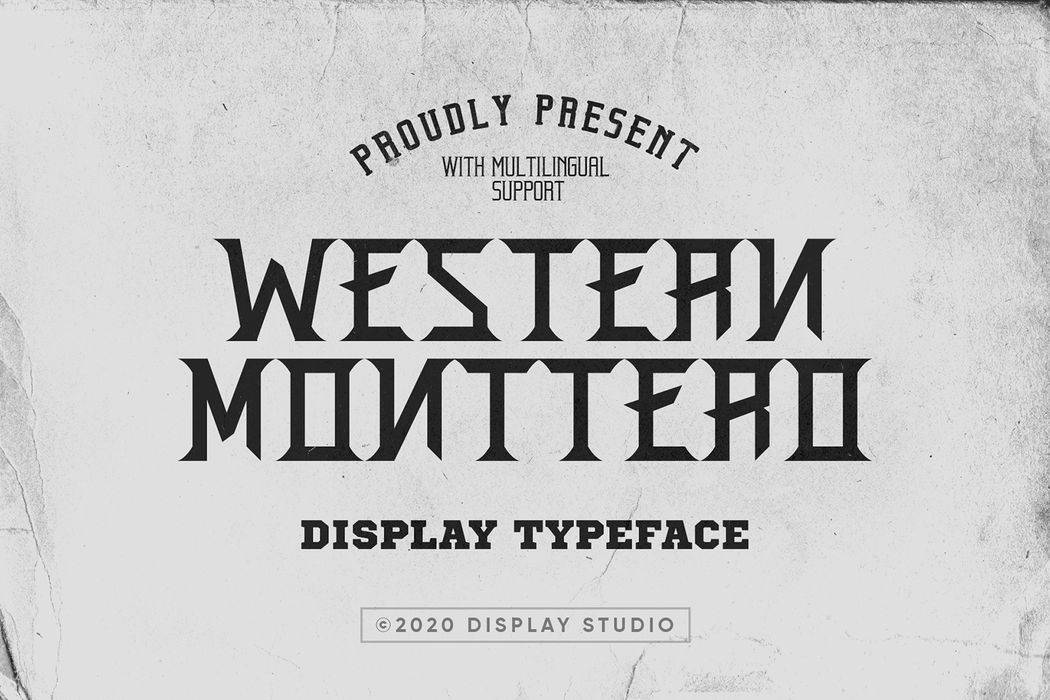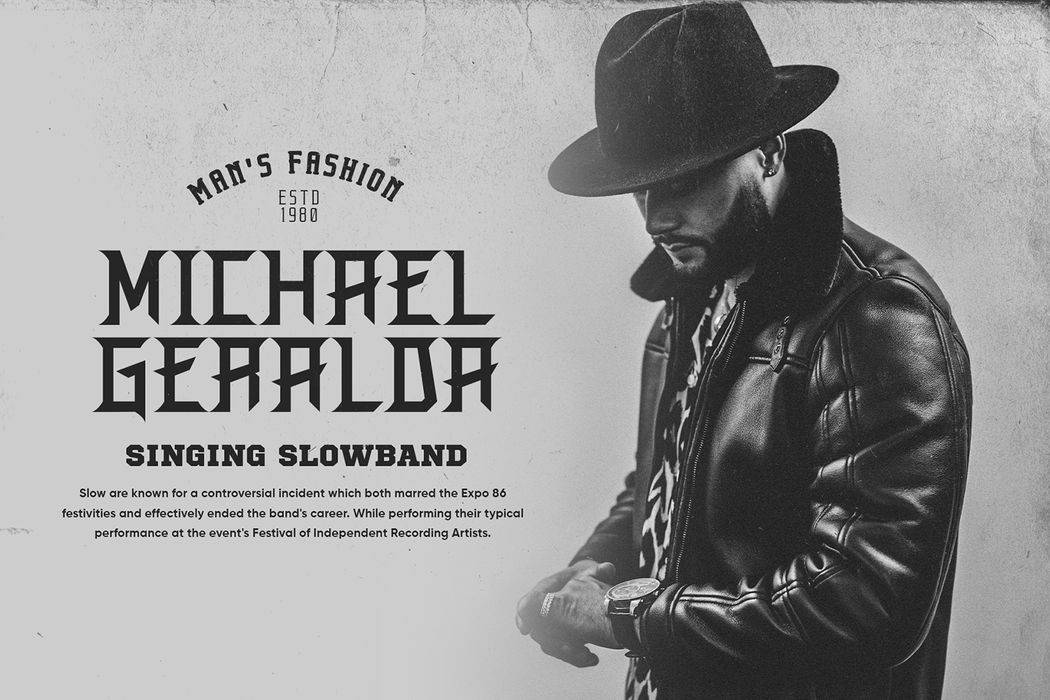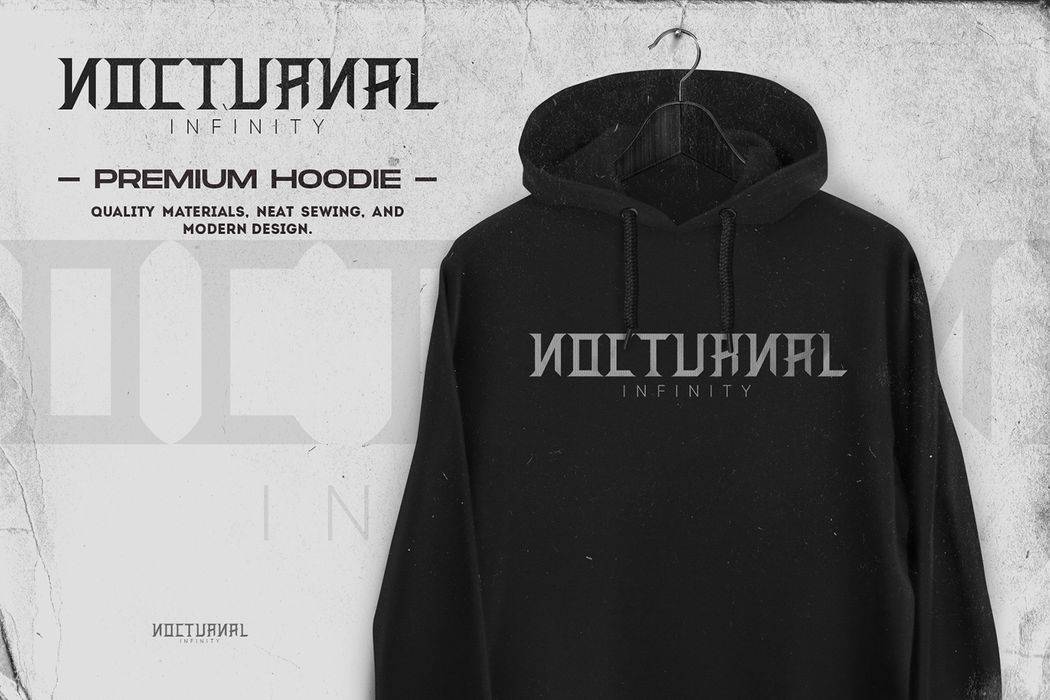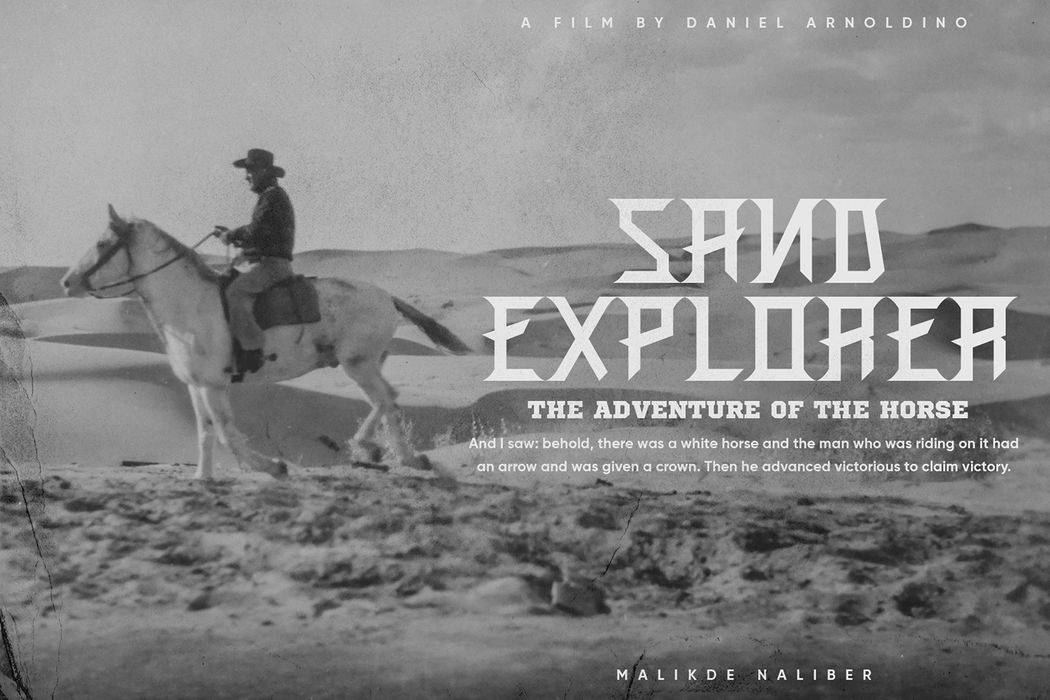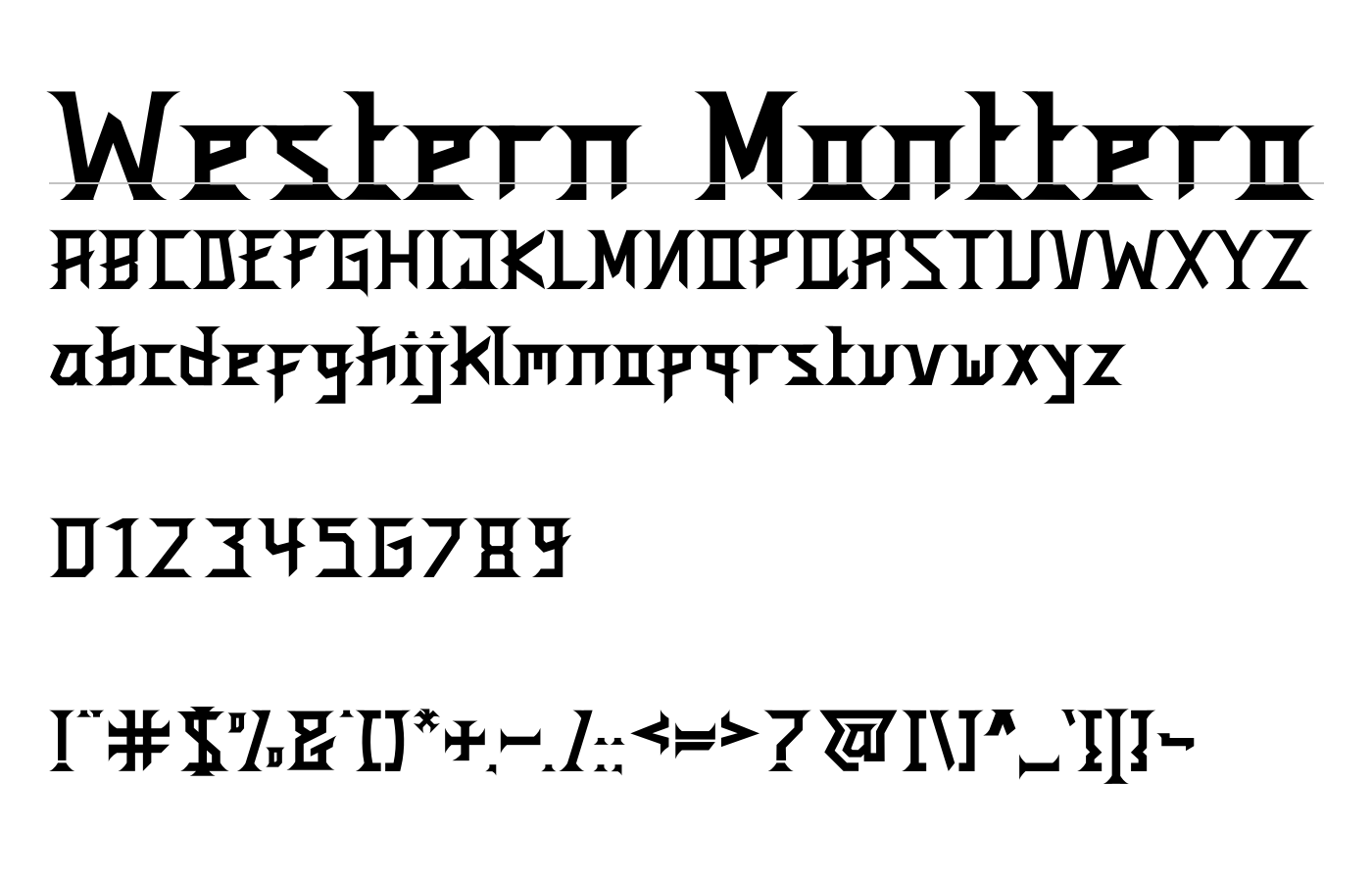
Western Monttero is a bold, angular serif font with a striking Gothic-inspired design. Its sharp, pointed serifs and high contrast between thick and thin strokes give it a dramatic, vintage Western feel, making it ideal for logos, posters, and branding that seek a rugged yet stylish impact. This font stands out best in display uses where its unique, strong character shapes can command attention and convey a sense of boldness and tradition.
Western Monttero Font
About Western Monttero Font